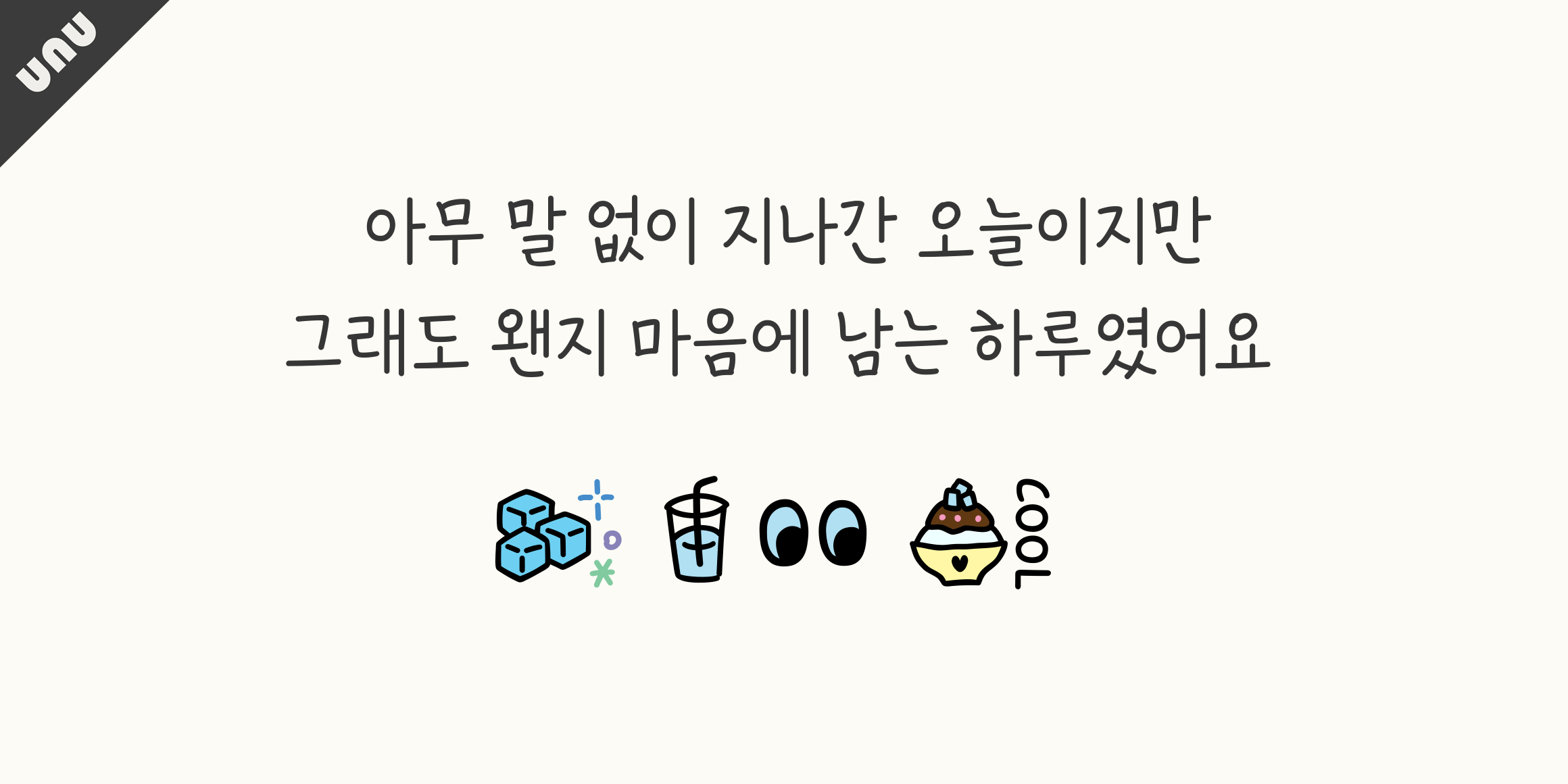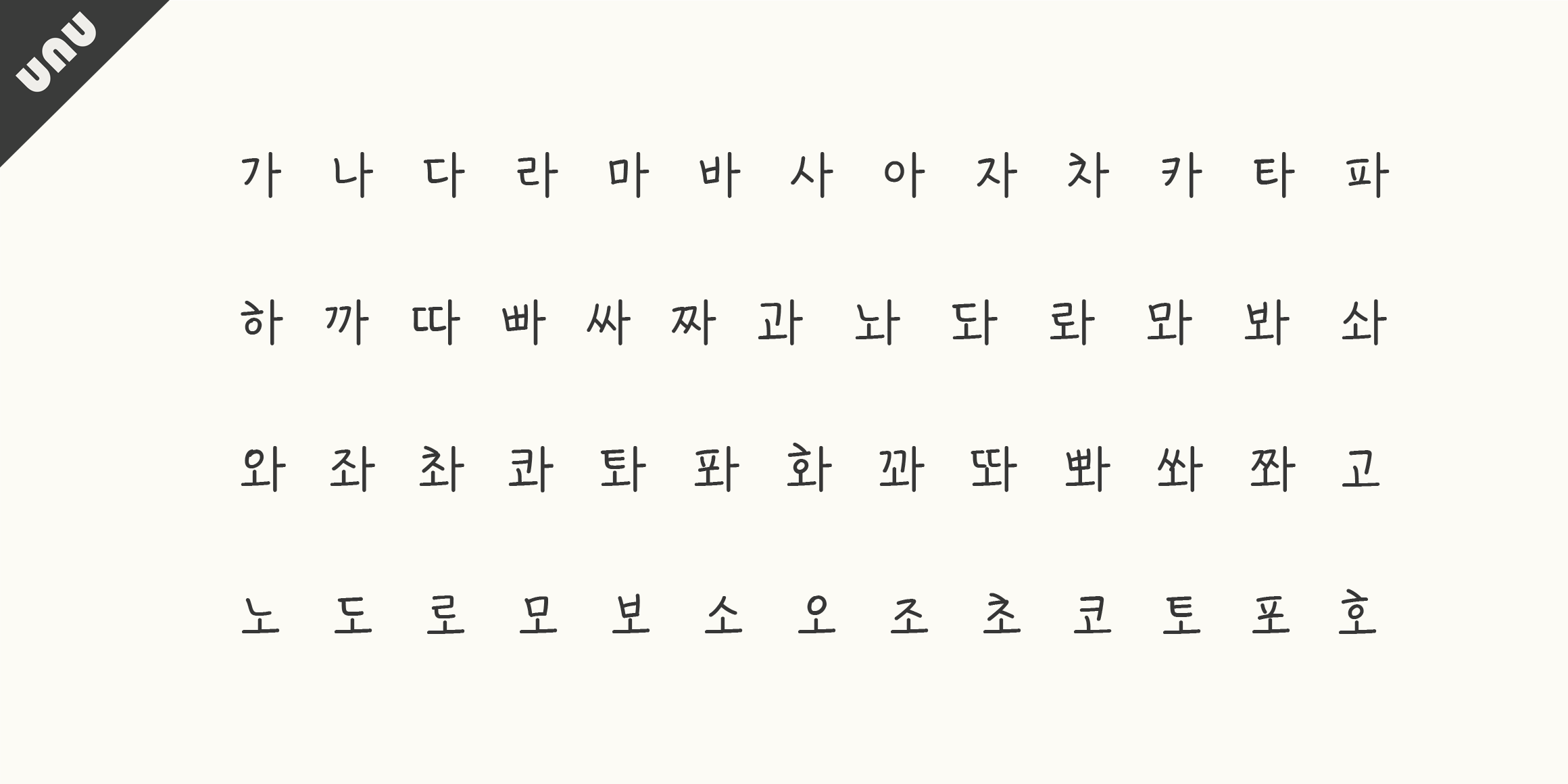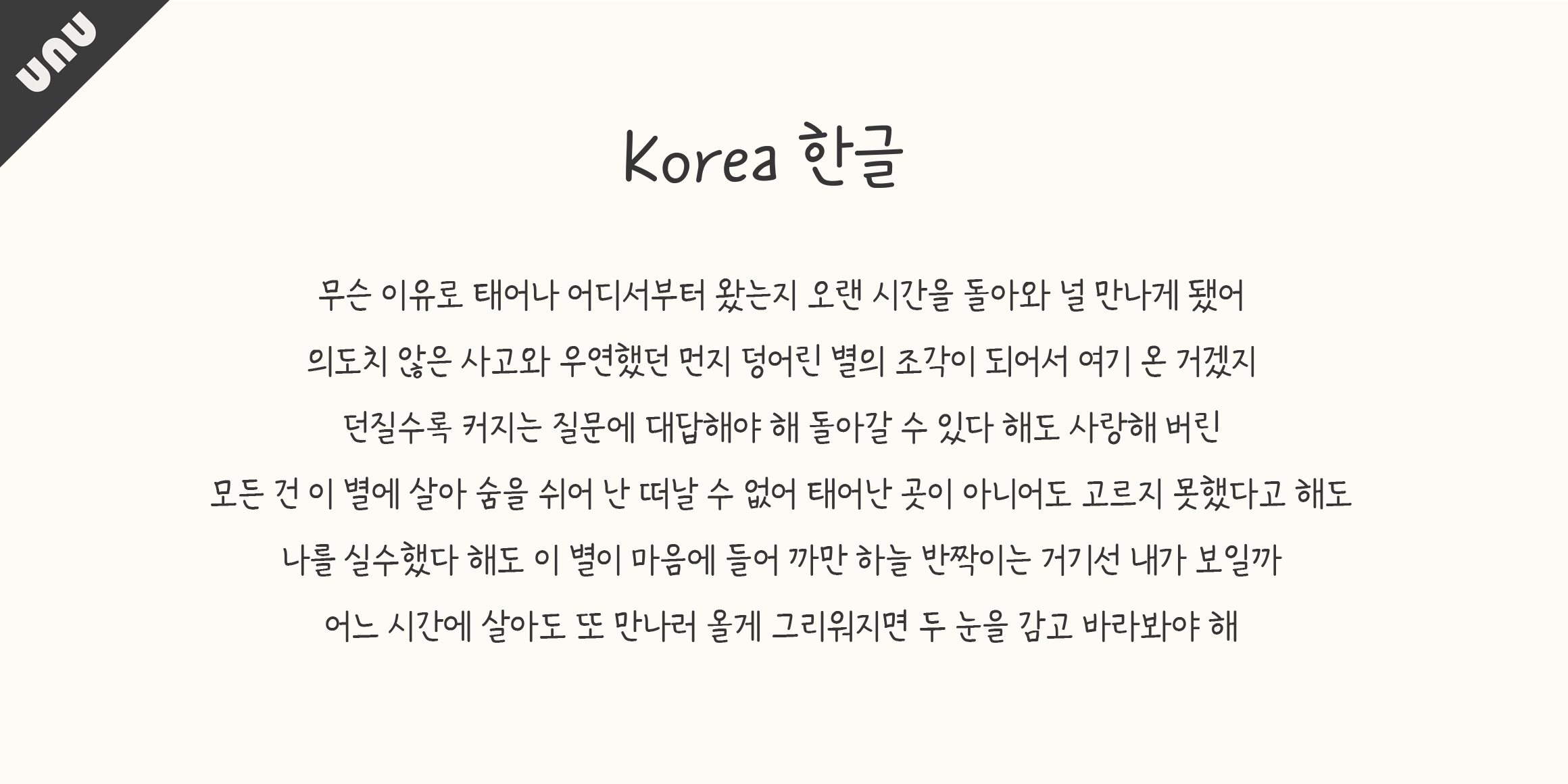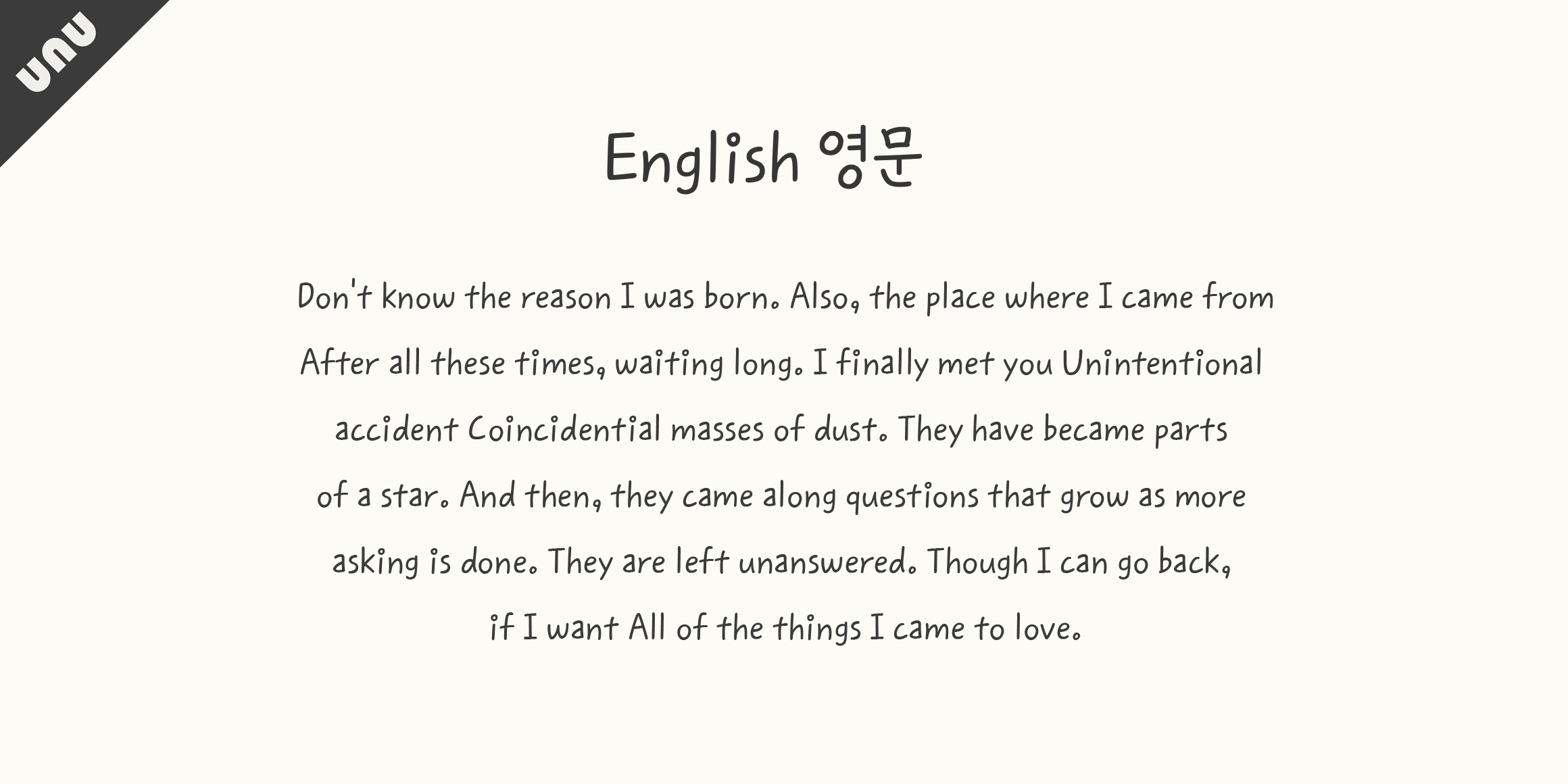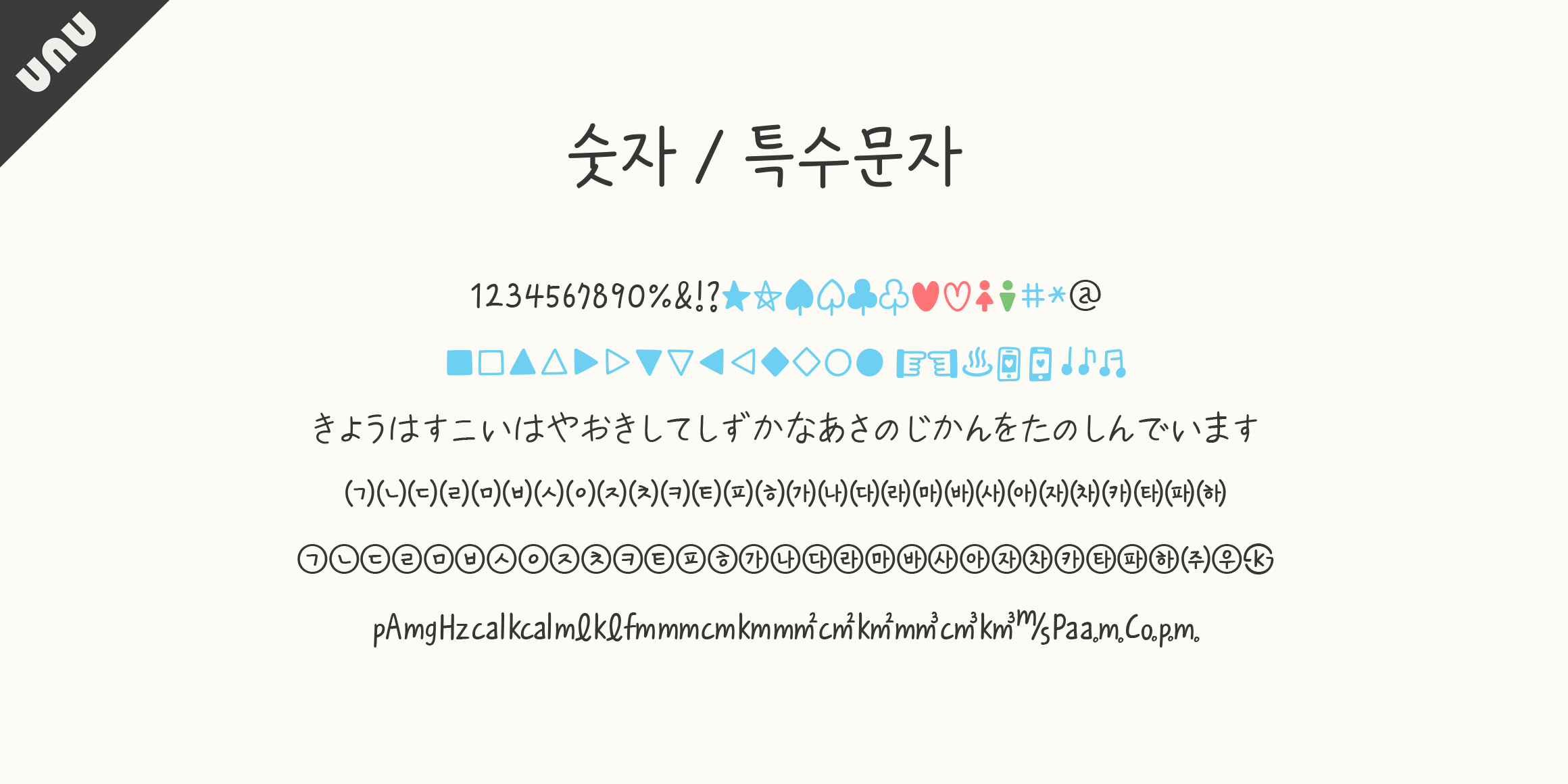
unuacupofsummer
unu
This font is characterized by its lyrical, regular form and neat readability. I recommend it when you want to convey warm feelings to someone you love or when you want to record today in your precious diary. The unutype font conveys your warm heart. (There may be devices or apps that do not apply color, and there may be no change in thickness when made thick.)
• unu여름한컵 / unuacupofsummer